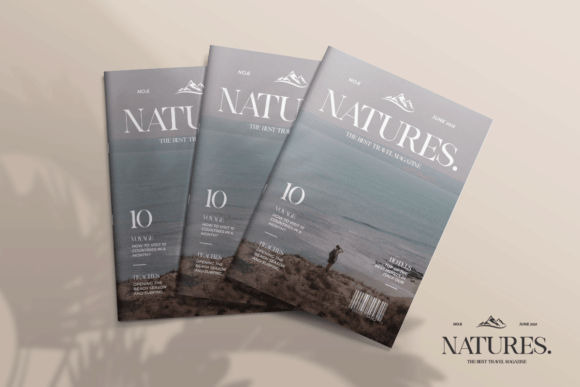
Lovely Font
Lovely is a charming and elegant typeface that combines sophistication with a touch of romance. Ideal for luxurious branding, beautiful wedding invitations, stylish logos, and refined editorial designs, this serif font enhances your projects with its graceful curves and timeless beauty. The Lovely font adds a sense of elegance and warmth to any design, making it perfect for those looking to create a polished and exquisite aesthetic. Whether used in print or digital formats, this font will leave a lasting impression with its delicate and stylish details.